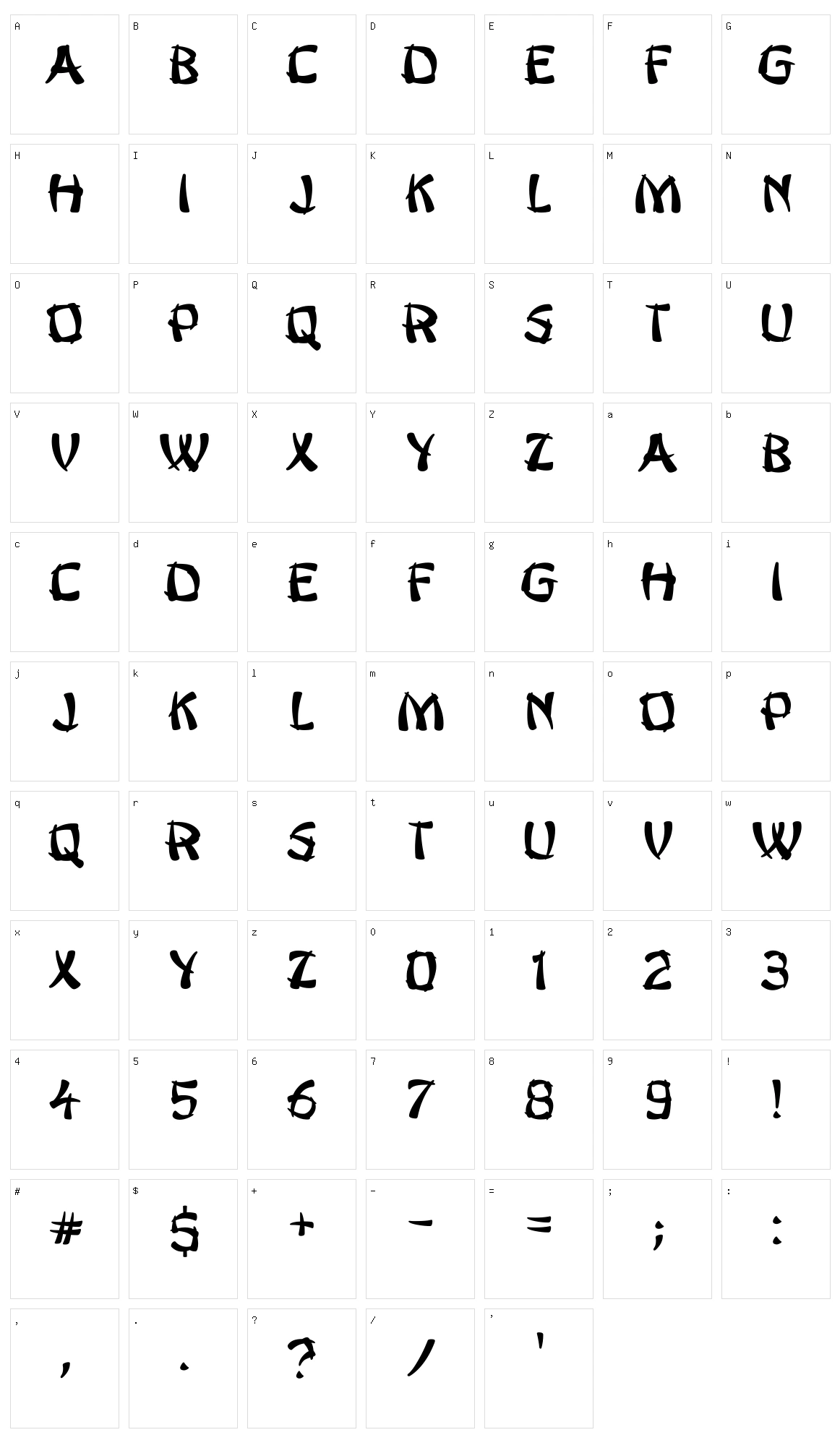
The free font ChopsUey is carefully designed by K. Mellbach, showcasing a thoughtful balance of creativity and usability and falls under the Asian font style. When you download the ZIP file, it contains only 9.58 KB of font files, making it lightweight and quick to download. Please review the license details below to understand permitted usage and distribution rights. If license information is not available, we recommend using this font for personal projects only or contacting the author directly for commercial usage permissions.